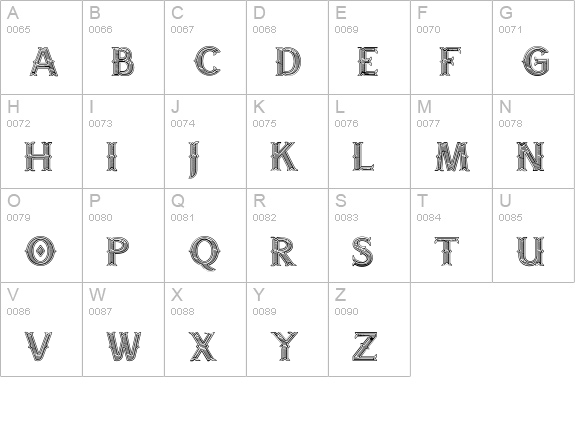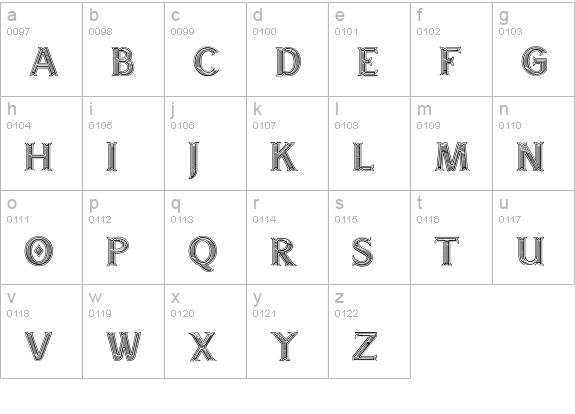
LAKESTER INLINE OPTION 2 LAYER 3 Font Details
Introducing the Lakester Inline Option 2 Layer 3 font, a stunning display typeface that exudes modern elegance and sophistication. This unique font features intricate inline detailing and three layers that add depth and dimension to your designs. Perfect for creating eye-catching headlines, logos, and branding materials, the Lakester Inline Option 2 Layer 3 font is sure to make a bold statement. Best of all, this versatile font is available for free download at FontsMarket.com, making it accessible to designers of all levels. Whether you're working on a personal project or a client's campaign, the Lakester Inline Option 2 Layer 3 font is a must-have addition to your font collection. Get ready to elevate your designs with this sleek and stylish typeface that is sure to impress.